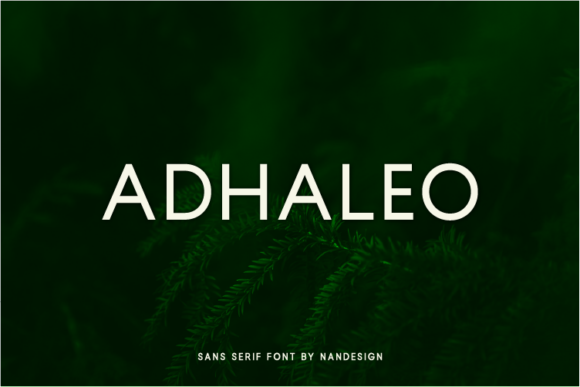
Adhaleo Font: The Epitome of Web Design Brilliance
Harness the power of Adhaleo, the sans serif font that will revolutionize your web design endeavors. Born from the creative genius of Nan Design and hailed as one of the "Best Fonts for Web Design 2015," Adhaleo embodies a harmonious blend of clarity and sophistication.
With its crisp lines and smooth curves, Adhaleo effortlessly enhances the readability and visual appeal of your website. Its versatility knows no bounds, effortlessly adapting to a wide range of design aesthetics. Whether you seek to craft captivating headlines, engaging body text, or alluring CTAs, Adhaleo stands as your trusted ally.
Unleash your creativity and let Adhaleo elevate your web presence to unprecedented heights. Its timeless elegance and effortless charm will captivate your audience, leaving an indelible mark on their digital experience. Embrace Adhaleo today and witness the transformative power it holds for your web design aspirations.